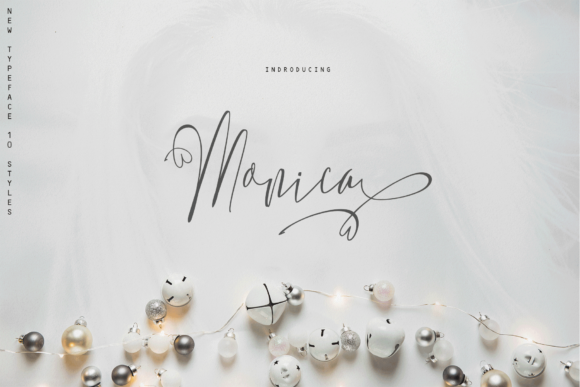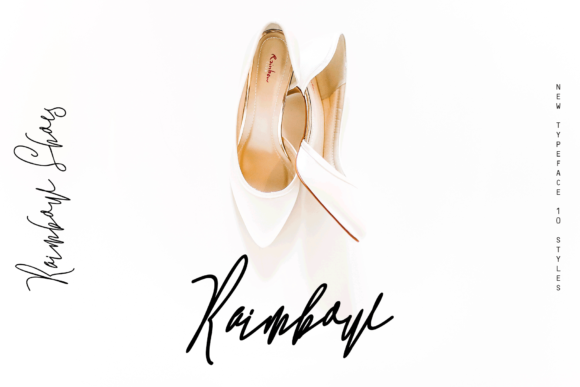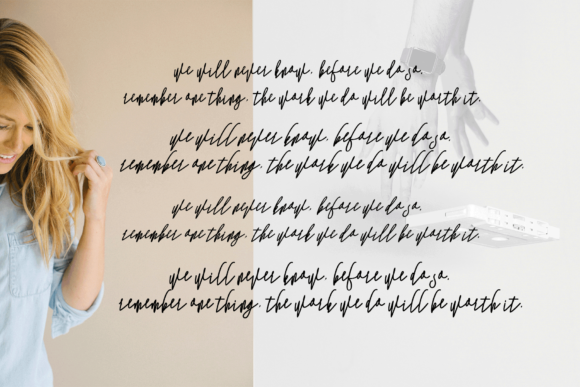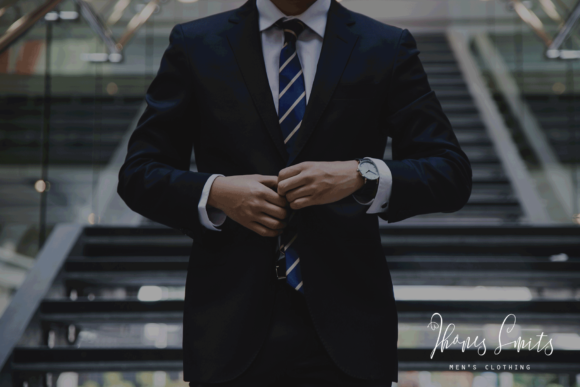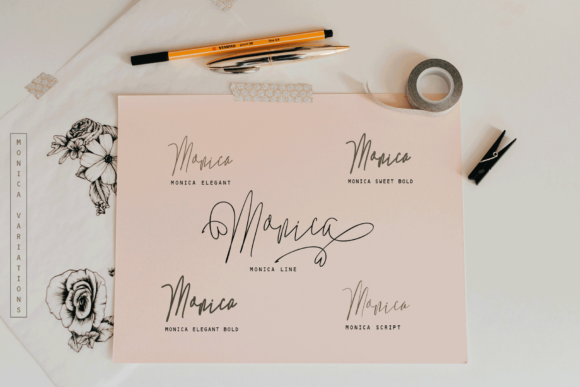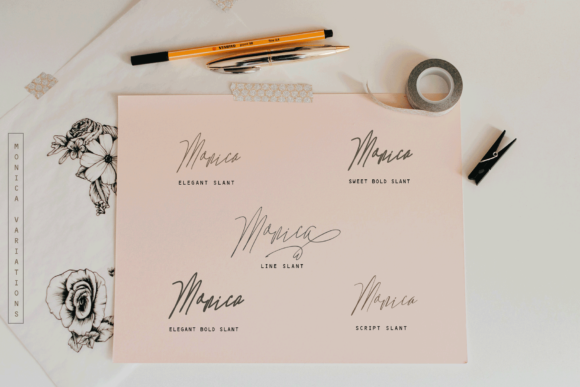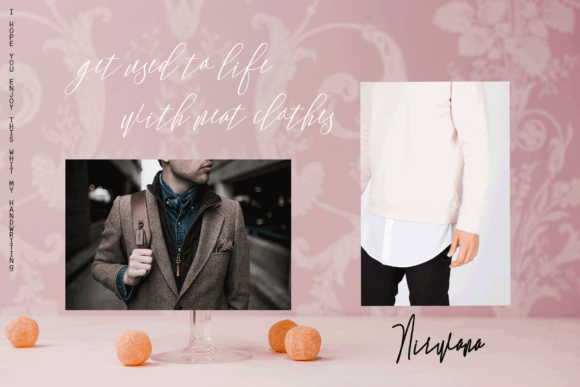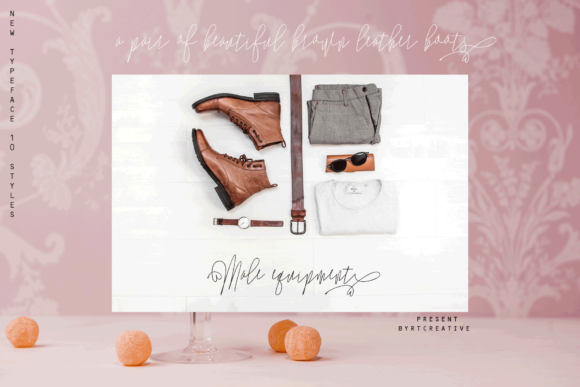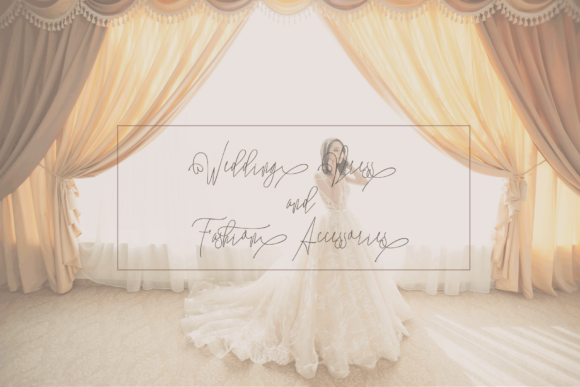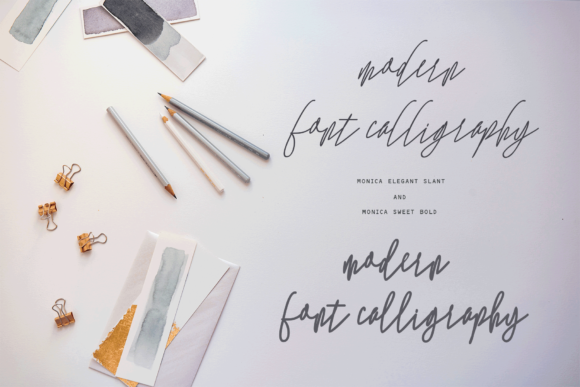
Monica Family Font
About Monica Family Font
Monica is a handwritten family with natural characteristics. It comes in ten beautiful weights which allow you to create a unique design every time you use it!